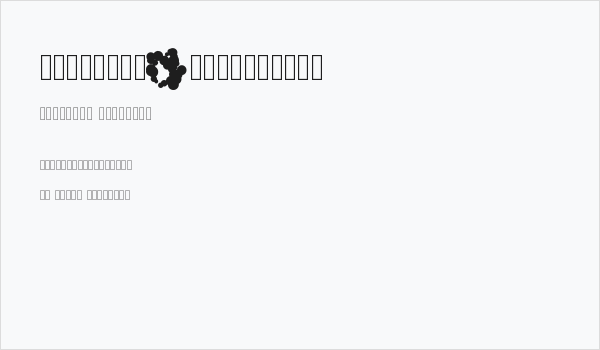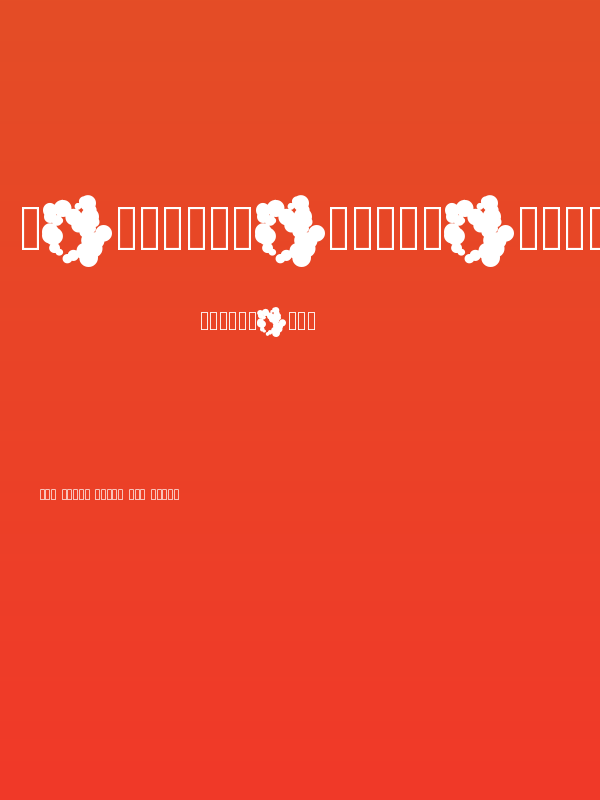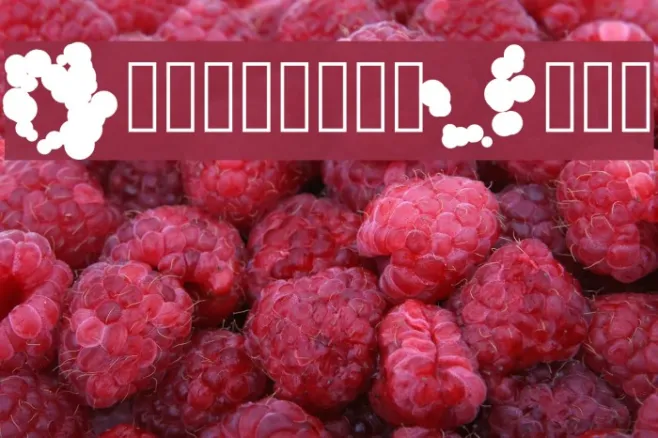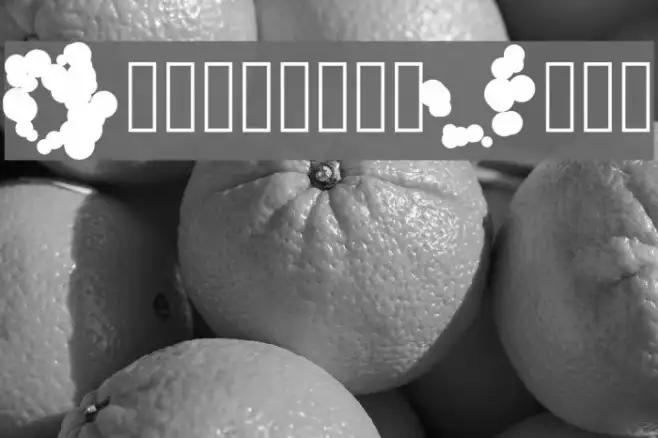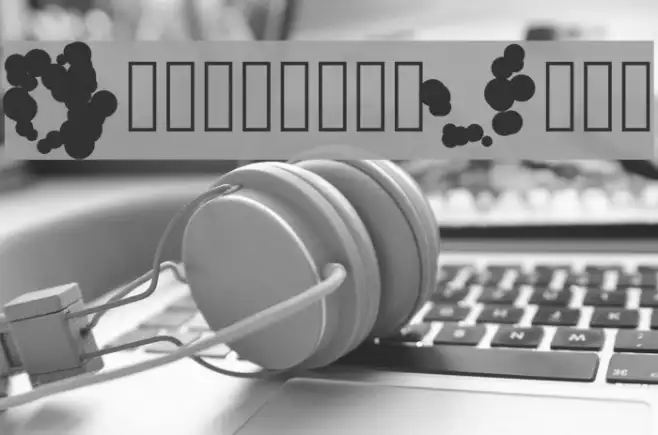
BathroomAlternative Font
BathroomAlternative Description
This font features a playful and whimsical design, characterized by its unique use of bubble-like shapes that form each character. The letters are enclosed within rectangular outlines, giving it a structured yet fun appearance. The font's style is reminiscent of playful, child-like creativity, making it stand out with its bold and decorative elements. The combination of geometric outlines with organic, bubbly forms creates a striking contrast that is visually engaging. This font is ideal for projects that aim to capture attention and convey a sense of fun and creativity.